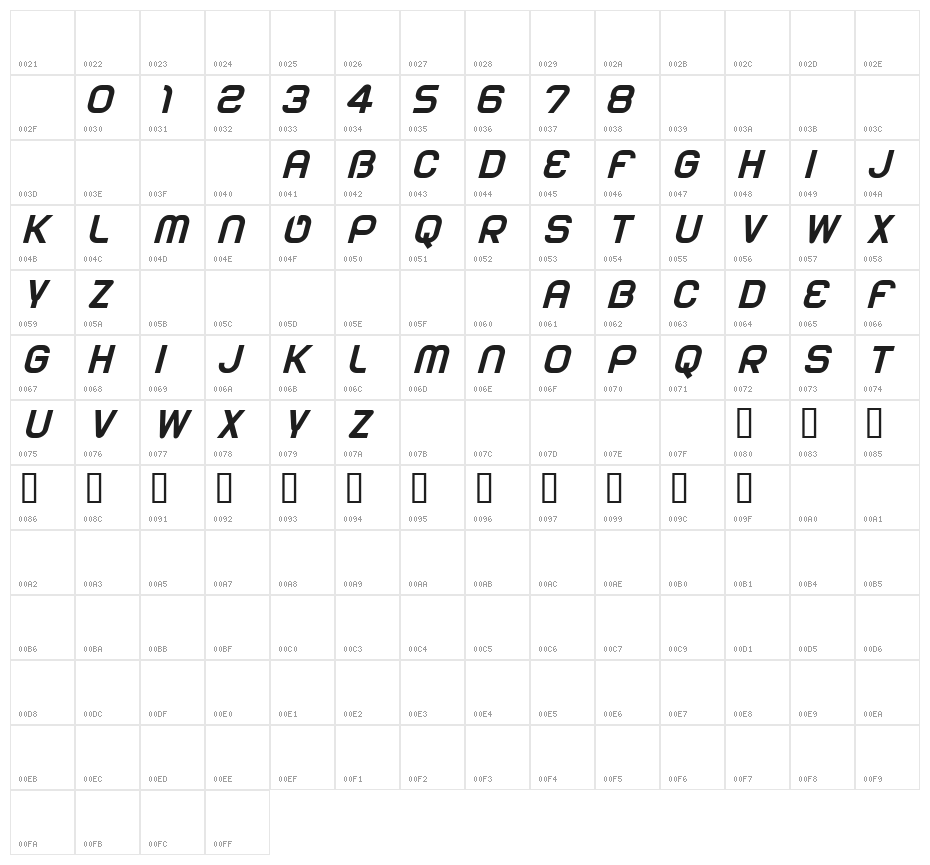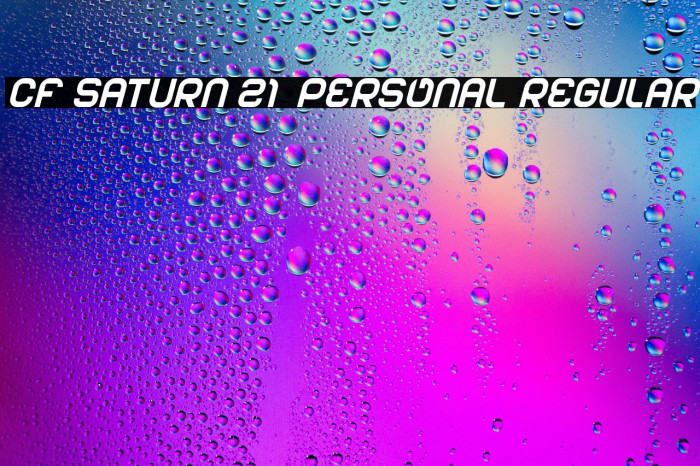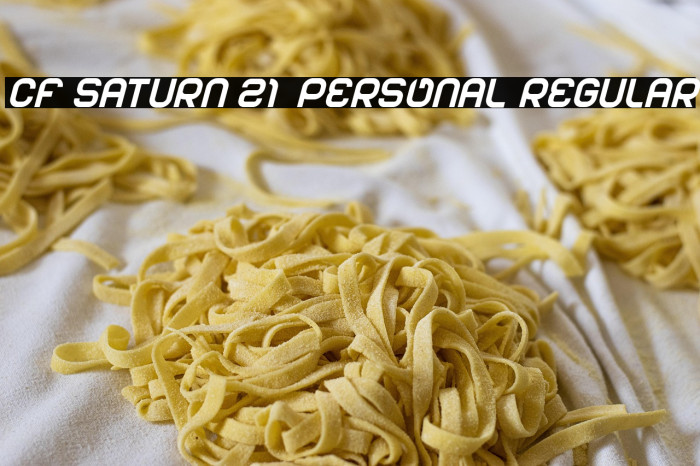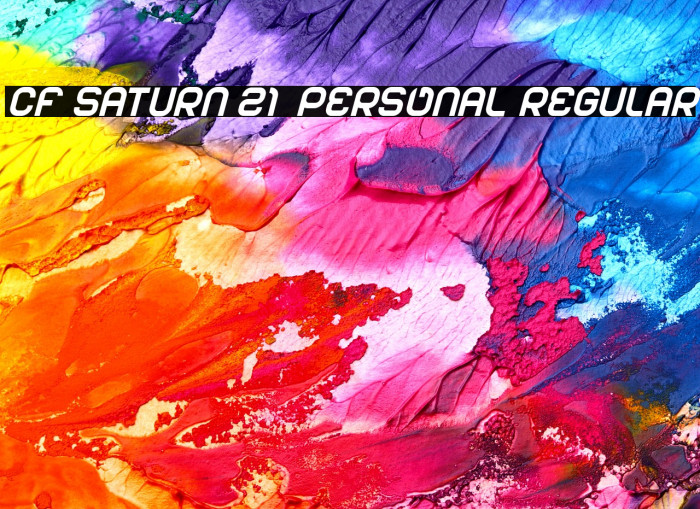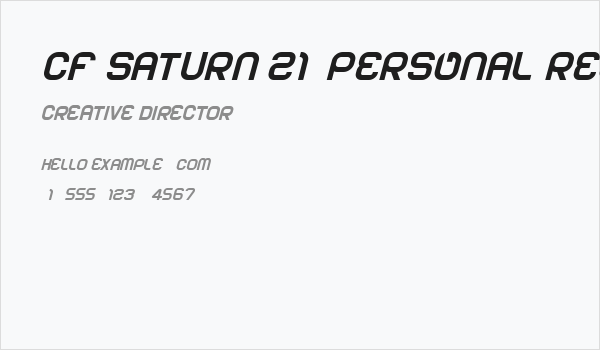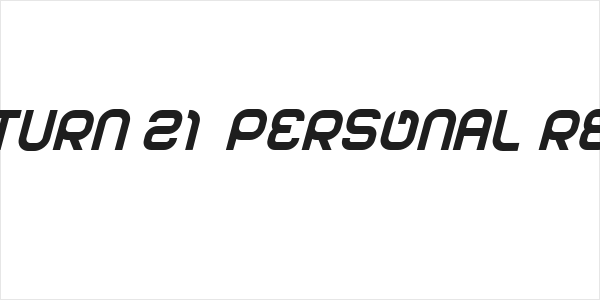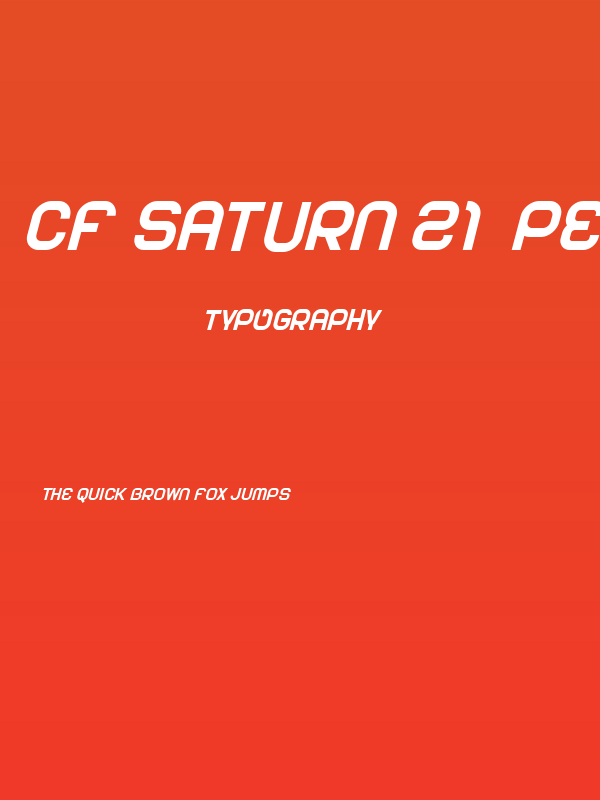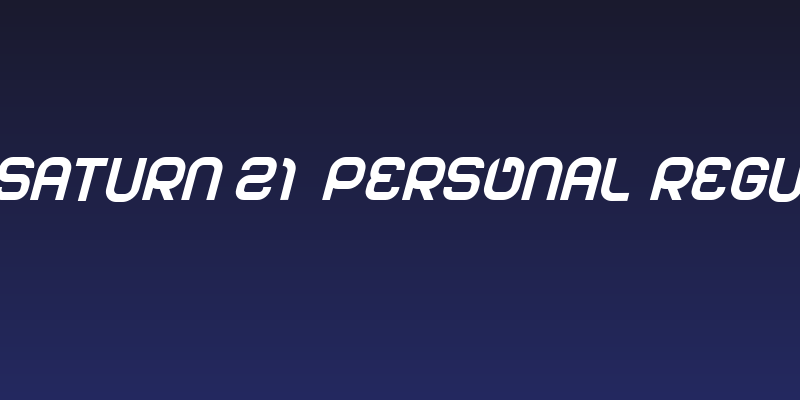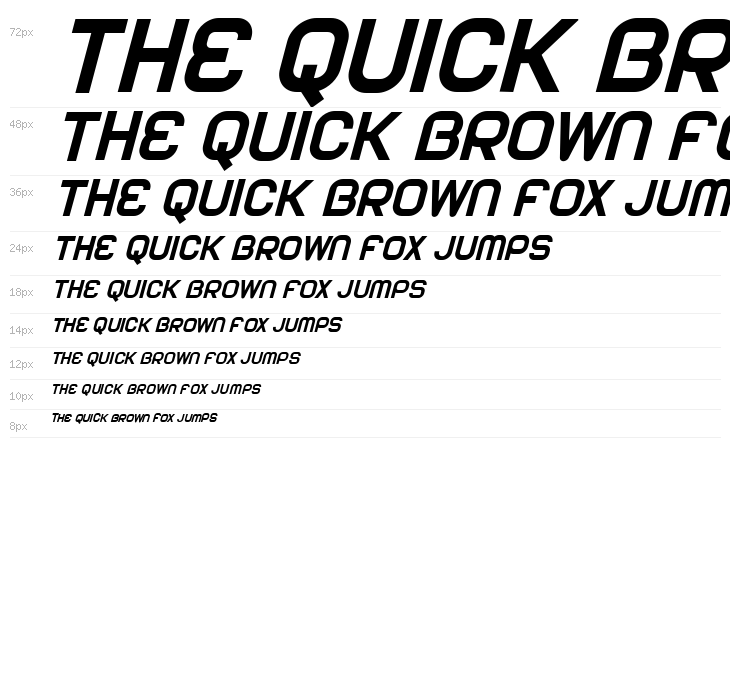
CF Saturn 21 PERSONAL Regular Font
CF Saturn 21 PERSONAL Regular Description
This font features a modern, sleek design with a slight slant, giving it a dynamic and forward-moving appearance. The characters are bold and have a geometric structure, with consistent stroke widths that provide a uniform look. The uppercase and lowercase letters are well-proportioned, maintaining readability while adding a touch of sophistication. The numbers are clear and distinct, matching the overall style of the alphabet. Special characters are included, maintaining the same aesthetic and ensuring versatility in usage. The font's design is ideal for projects that require a contemporary and energetic feel.